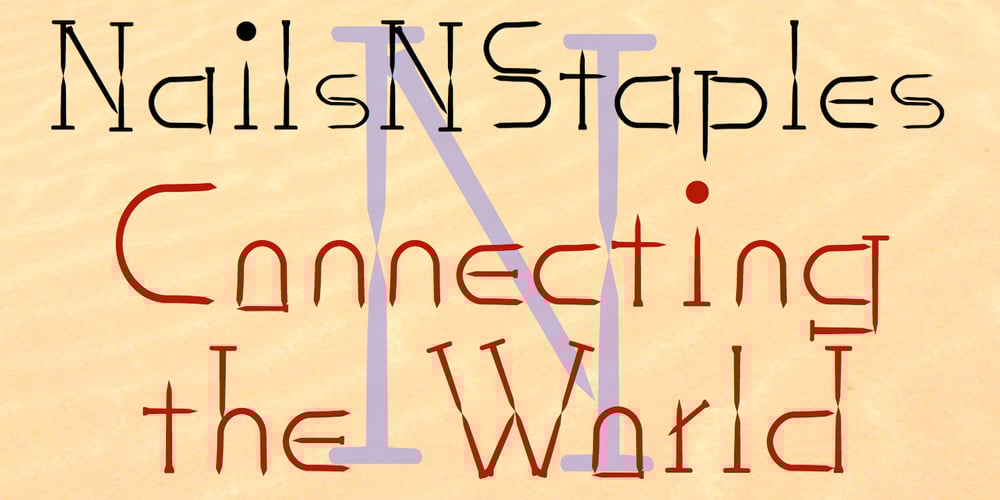
NailsNStaples Font Family was designed by Robert Schenk and published by Ingrimayne Type. NailsNStaples contains 1 styles and family package options. In NailsNStaples the letters are made up of nails and staples. (The staples are not the staples one uses to join paper, but the kind one hammers into wood.) It is not often that one needs a typeface made of nails and staples, but if one does, there is a font for that.